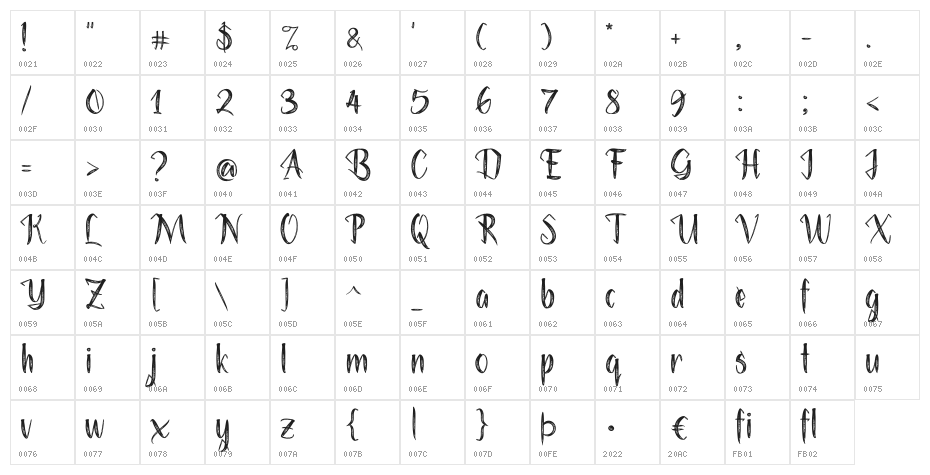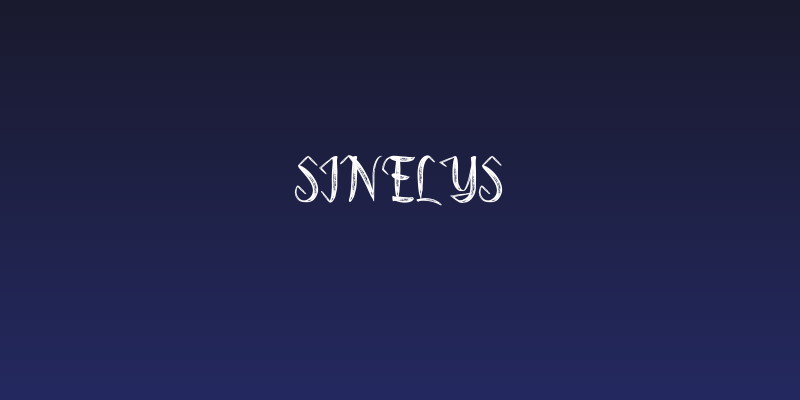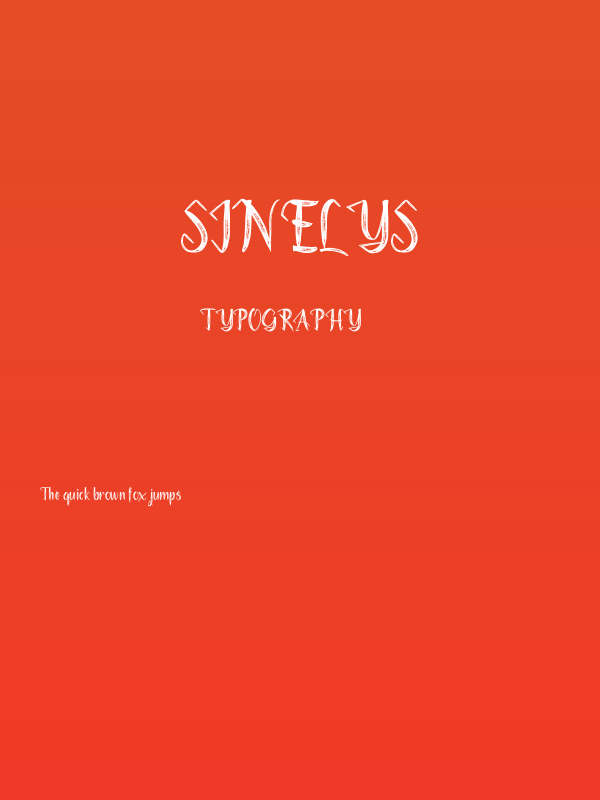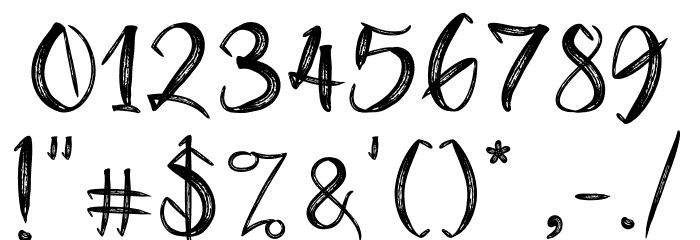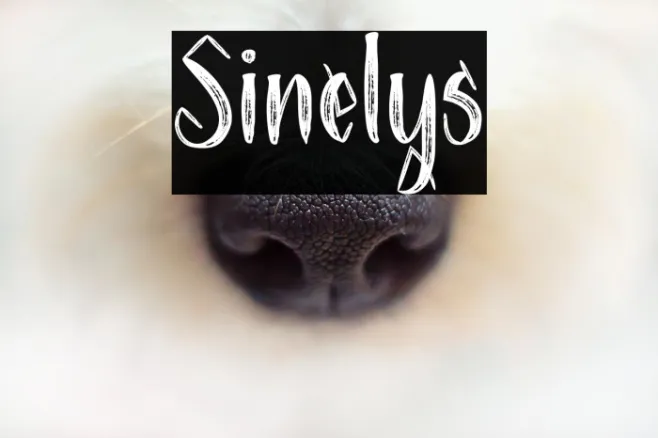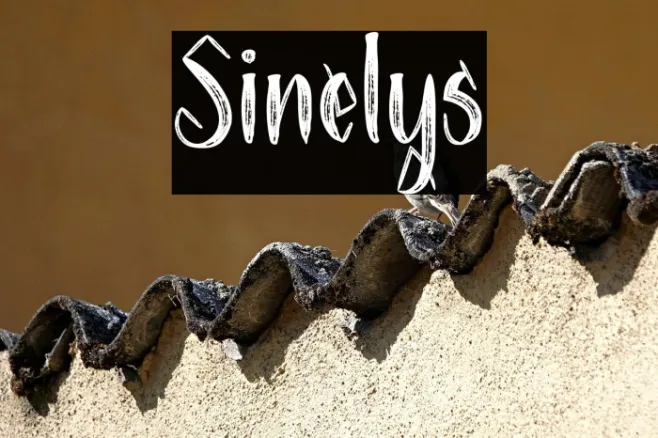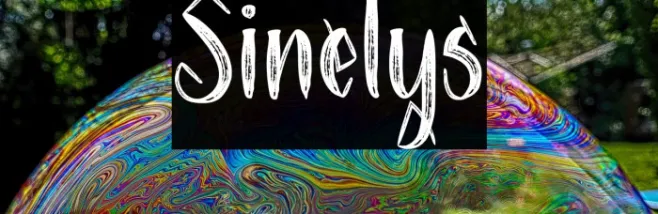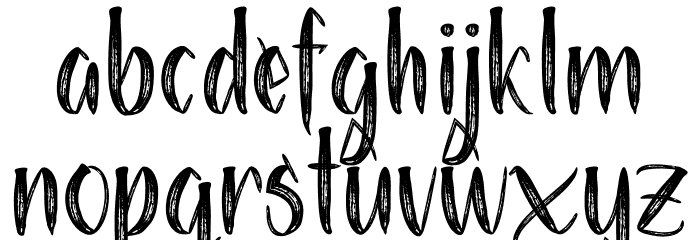
Sinelys Font
Sinelys Description
This font features a bold and expressive handwritten style with a dynamic and energetic appearance. The characters are crafted with a brush-like texture, giving them a raw and artistic feel. The uppercase letters are tall and slightly condensed, while the lowercase letters maintain a consistent flow with a slight slant, enhancing the handwritten aesthetic. The numbers and special characters follow the same stylistic approach, ensuring a cohesive look across all glyphs. The overall design is both playful and edgy, making it suitable for creative and informal projects.
| Proposed Projects | Ideal for posters, album covers, creative branding, and artistic invitations. |